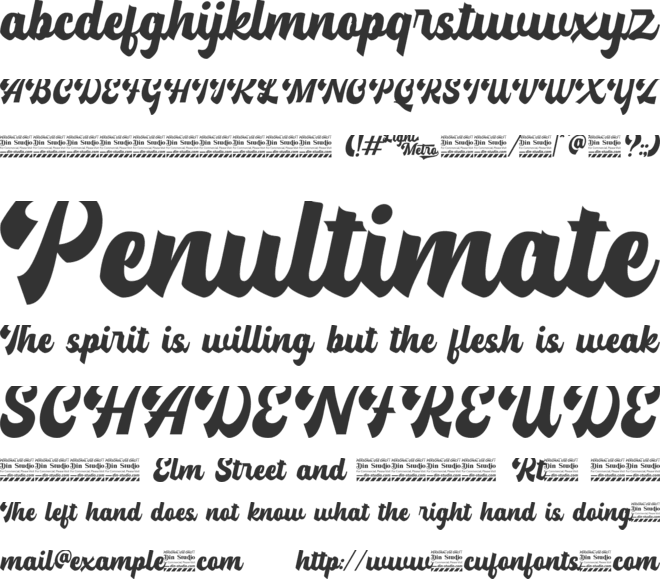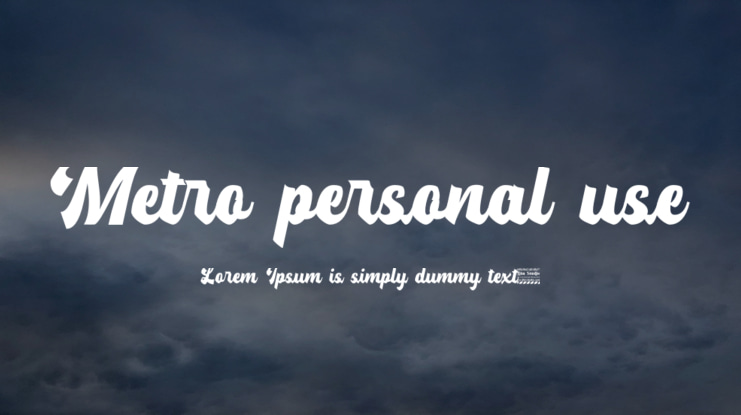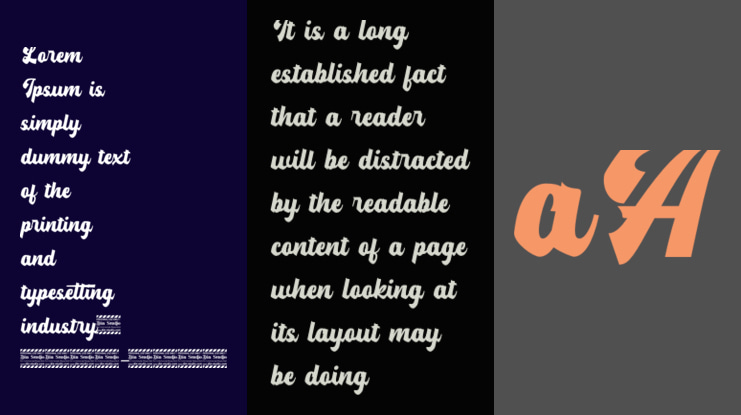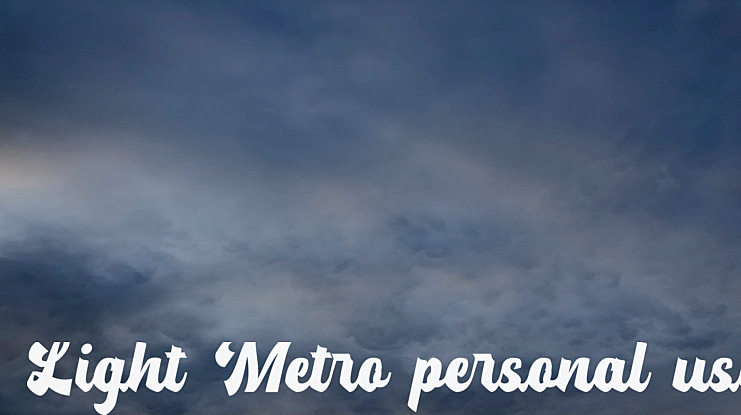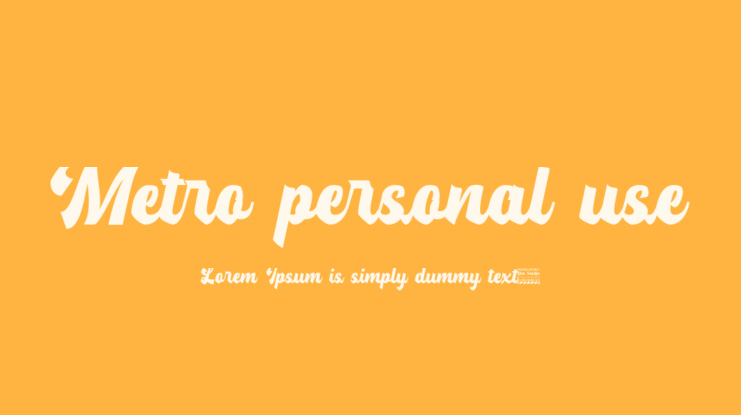
Light Metro is a captive font designed with strong outlines and fat strokes to bring your branding to life and add a touch of vintage, fun, but still stylish. Inspired from pop 1960-1970s. This font features thick and angular letters that easy on the eyes and nice to look while it’s also easy to read. Light Metro becomes more special with extruding version option. Perfect to create amazing headings, logos, menus, social media graphics, and many more.